Indian Sign Painting: A Typeface Designer’s Take on the Craft
Through her India Street Lettering project, Pooja Saxena re-examines the craft and its clichés.
India Street Lettering is a 200-page book presenting the documentary photography and detailed research that Pooja has carried out across the country.
Indian Sign Painting: A Typeface Designer’s Take on the Craft
By Pooja Saxena
It was not long after I began documenting street lettering in India that I became jaded by its singular perception — one that focused solely on sign painting and was outrightly colourful and flamboyant — that had taken hold of public imagination. More so because I could see that there were several non-digital methods and techniques of sign-making popular in the country at different times, and many design idioms flourished.
Of course, ignoring local design traditions for dominant global narratives is bad, but flattening them to a common denominator felt no better. And I couldn’t help but ask, why this identity — was it a vision for Indian street culture that seemed most palatable? My attention shifted, therefore: to ribbon lettering in metal, to experiments in mosaic, to possibilities in wood.
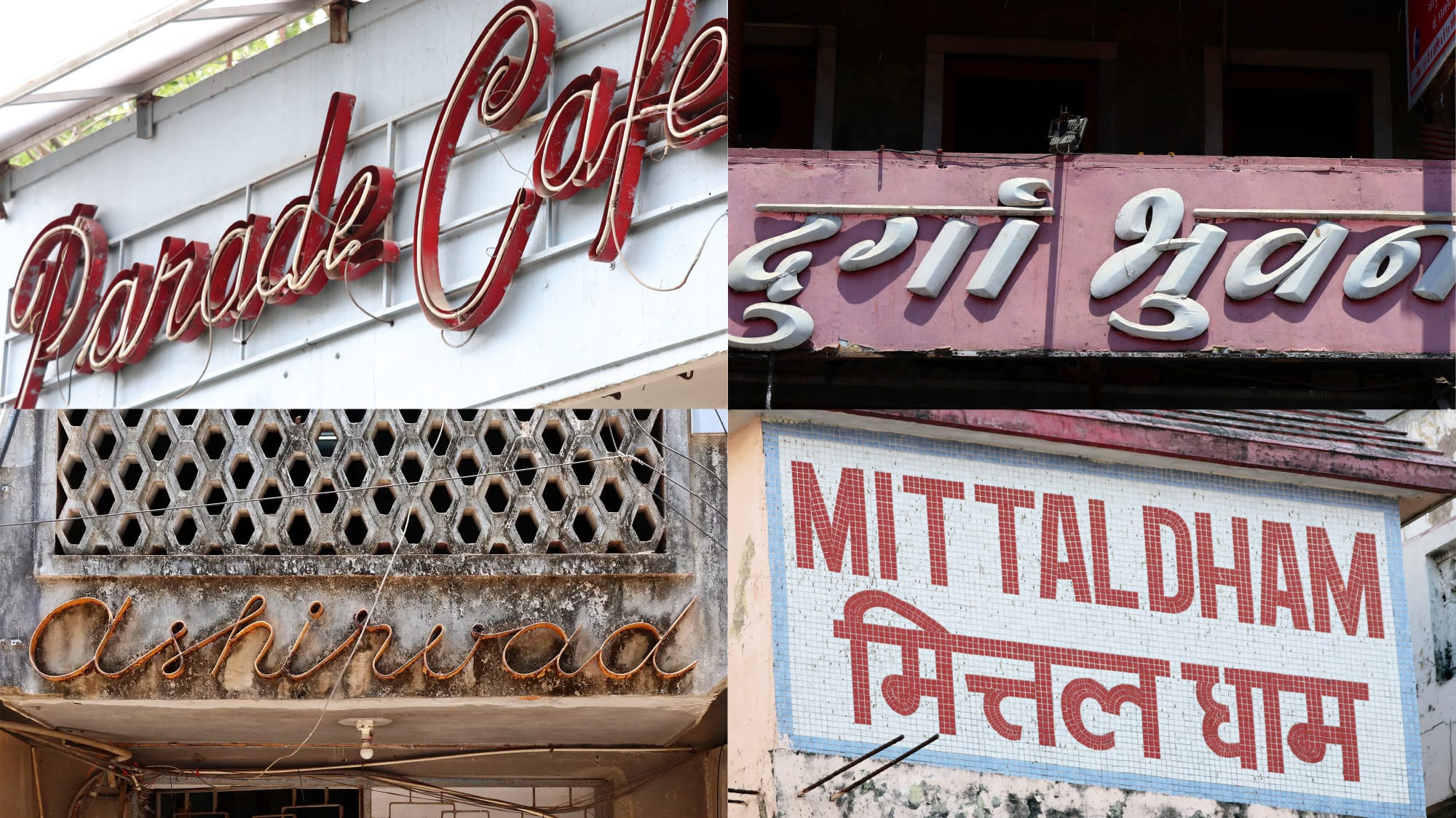
While I had never doubted the immense skill of sign painters, it took coming back to their work with new perspectives and a curiosity to see beyond the surface. I focused on recording signs and stories with the intention of zooming in, concerning myself first with the scale of the neighbourhood, rather than sweeping generalisations. If the exuberant adjectives used to describe sign painting felt vacuous, it was time to learn the language of the trade in local tongues. [Pooja explored some of this language in her recent BLAG Meet talk.] And most of all, I looked at painted letterforms with similar inquisitiveness and criticality that I do typefaces.
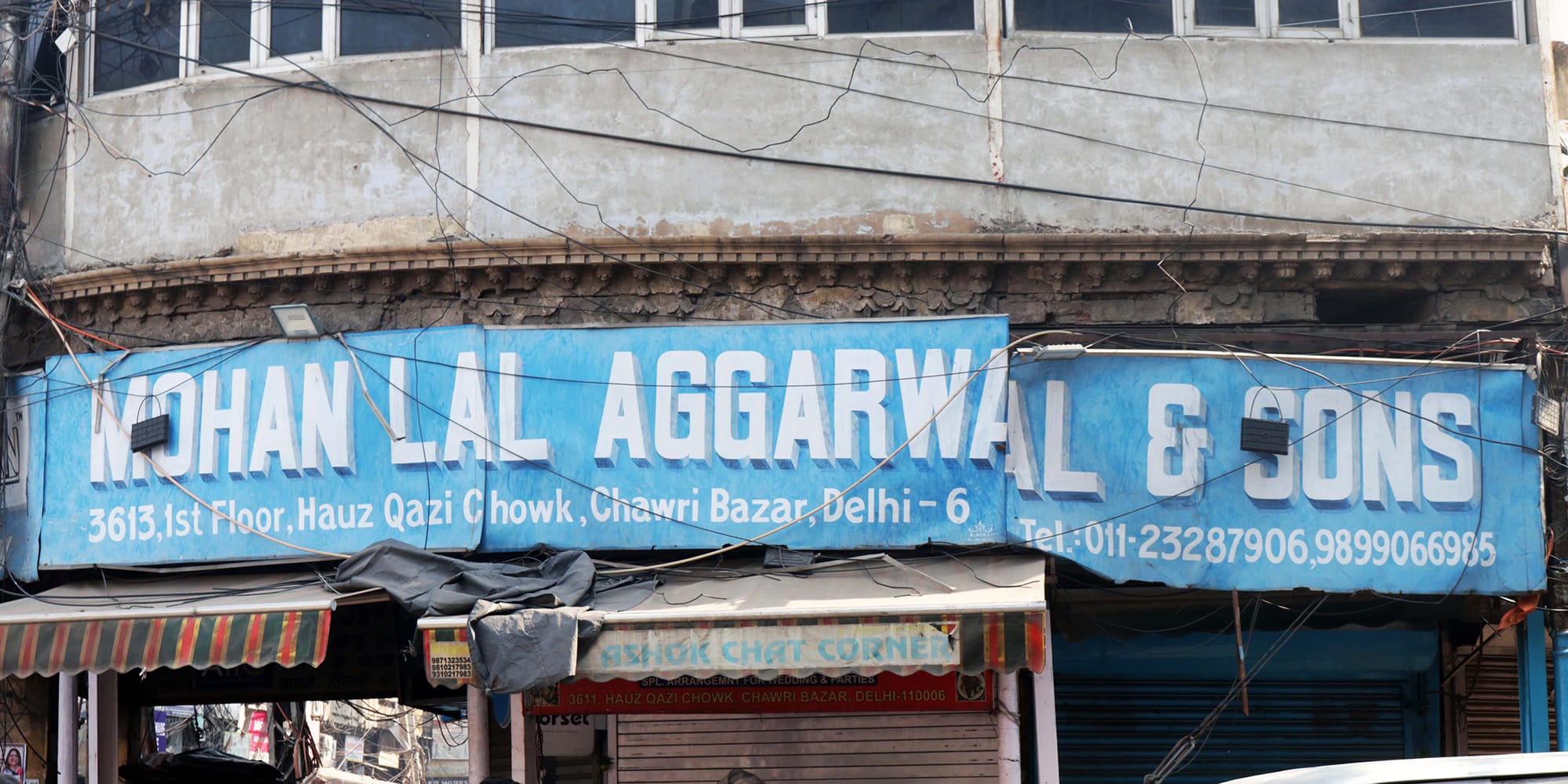
Searching for Local Typographic Flavour
It is not uncommon for sign painters to be employed by agents of large corporations, Indian and international, painting their logos on walls over and over again, but it is usually when they produce work for their communities and local businesses that they have the opportunity to flex their creative muscles.
I asked Mohanlal Sihani, a sign painter and proprietor of Shiv Arts in Chawri Bazaar, New Delhi, how he designs a shop sign: Does he show the customer samples of previous work? Are there discussions about preferred styles and colours? Is there an agreement on the design before he paints it?
The answer to all these questions was ‘no’. As it turns out, the process is based simply on trust. Sihani said that folks come to him because they know him and his work, and have faith that he will create a sign in his signature style that will suit their business. He chooses the layout, picks the lettering styles, and even adds illustrations where he feels they’re necessary.
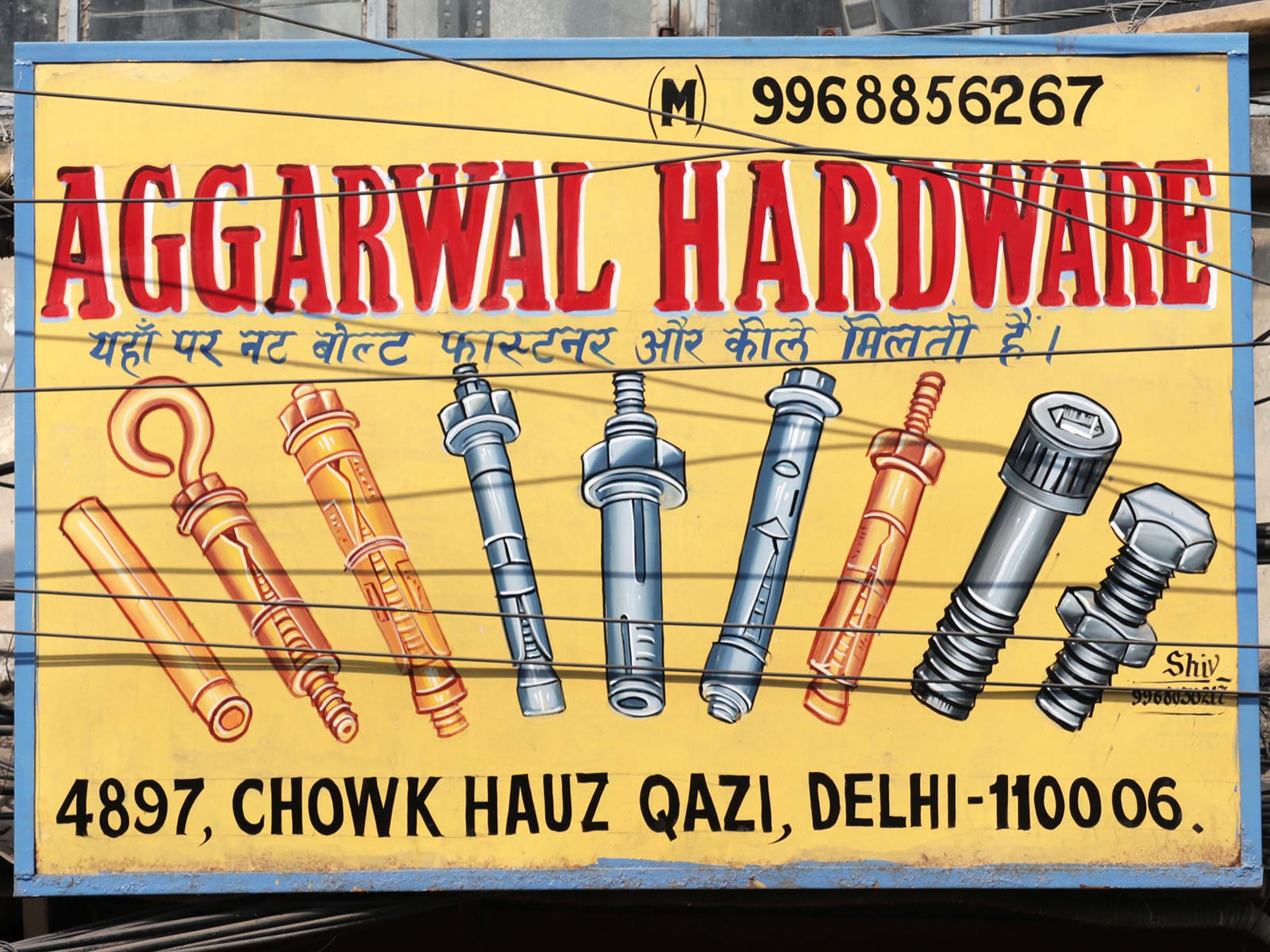
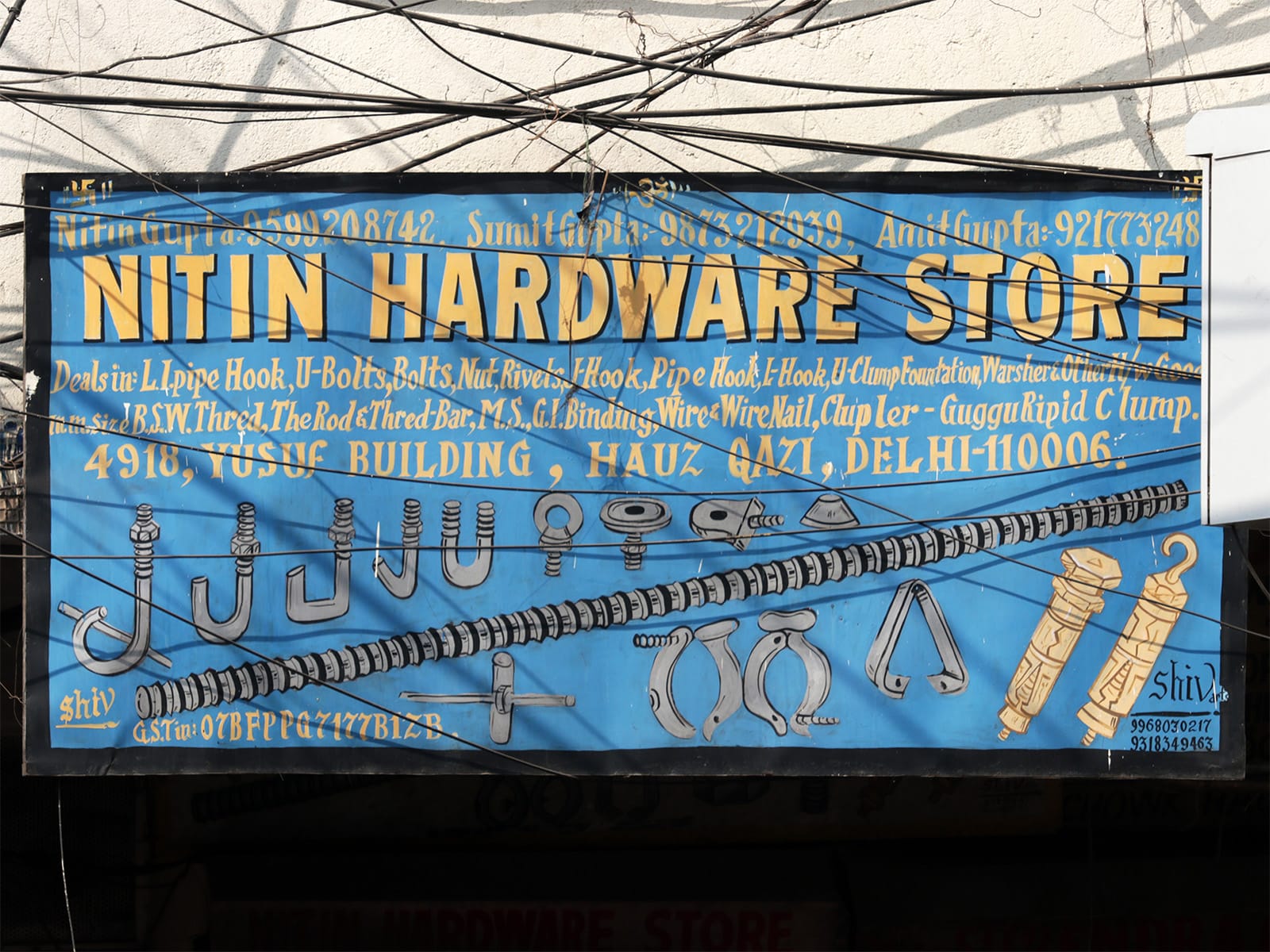
Hardware store signs by Mohanlal Sihani (Shiv Arts) in New Delhi.
Perhaps, it is this kind of creative independence that allows and encourages sign painters to cast their cities and neighbourhoods in recognisable typographic flavours, which sometimes end up taking on lives of their own. I am thinking of the painted buses of Kolkata, for example.
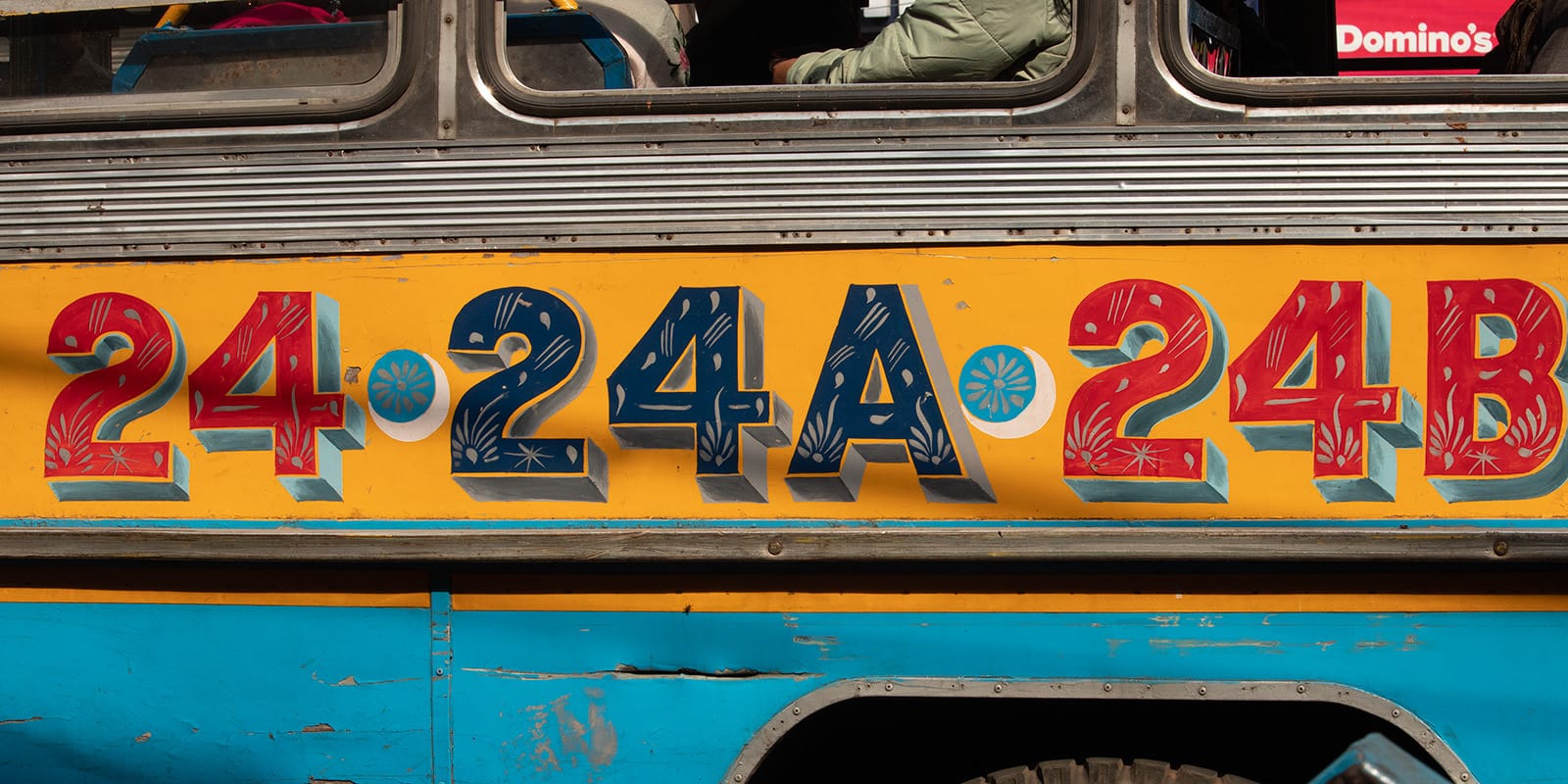
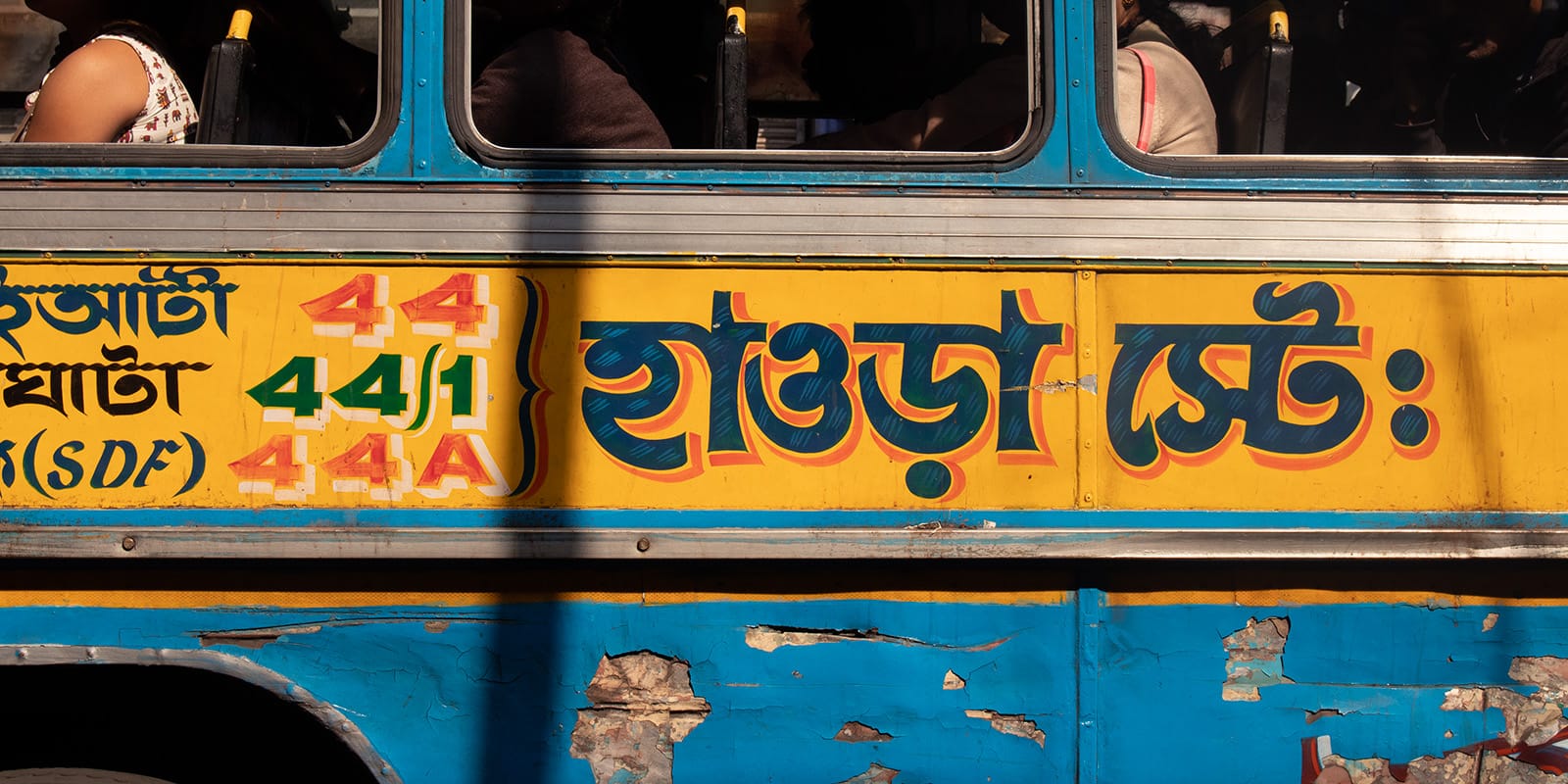
Buses in Kolkata with painted numbers, routes, and destinations, painter unknown.
And speaking of painted vehicles, how about the boats from Kochi’s Mattancherry? Or the lettering on trucks, also from Kochi, that strikes a unique chord even in a region known for its truck art.
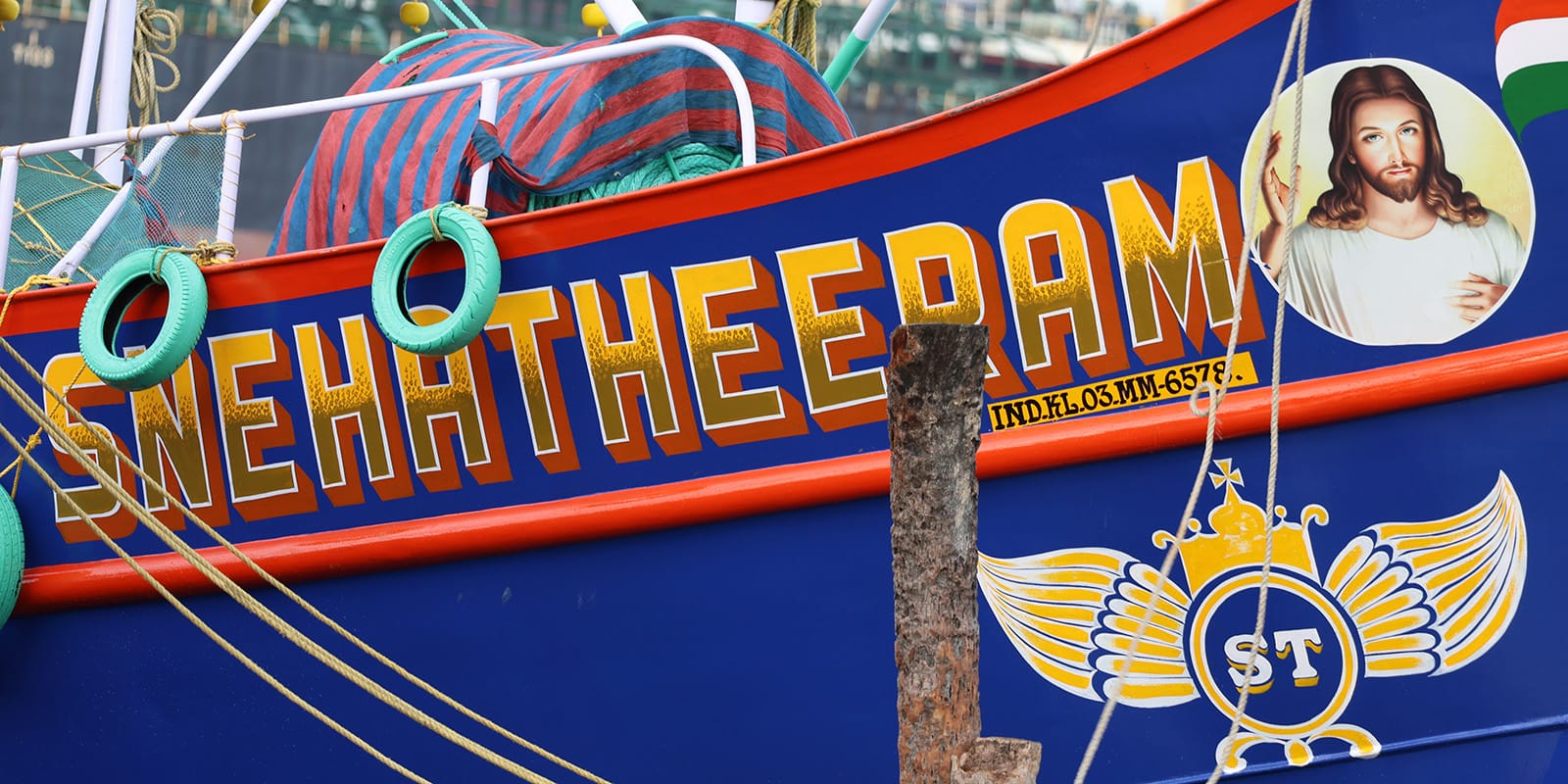
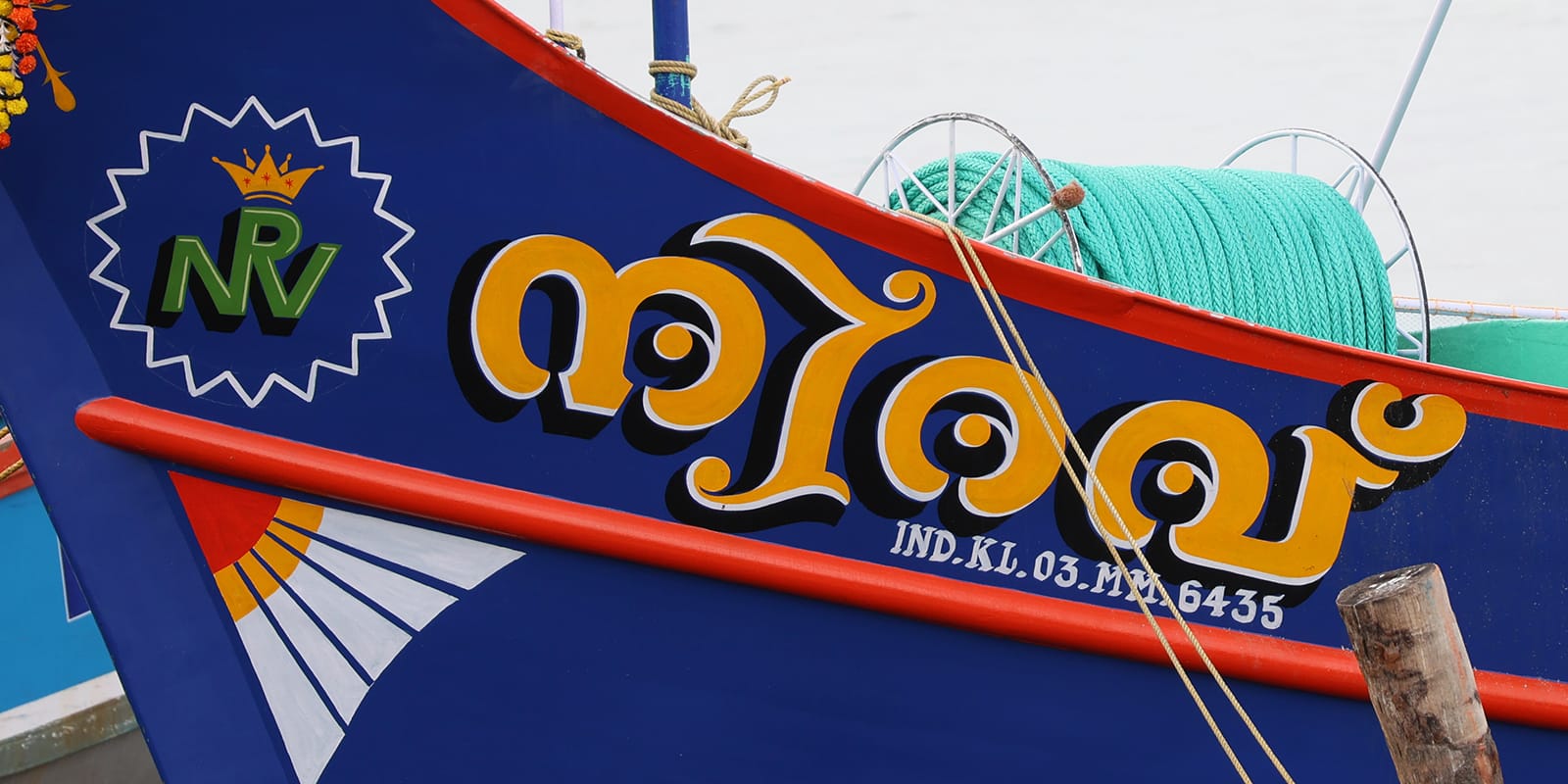
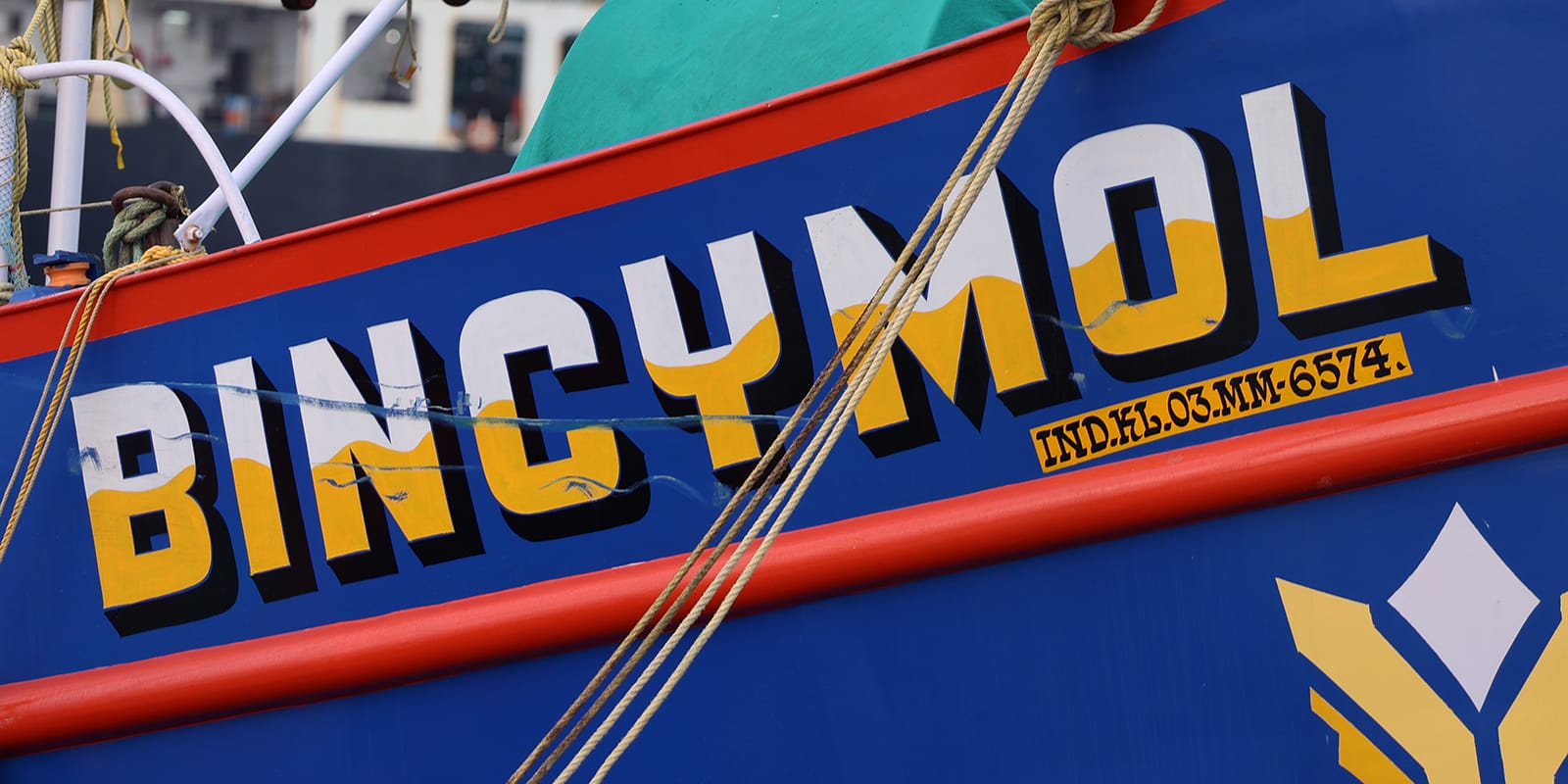
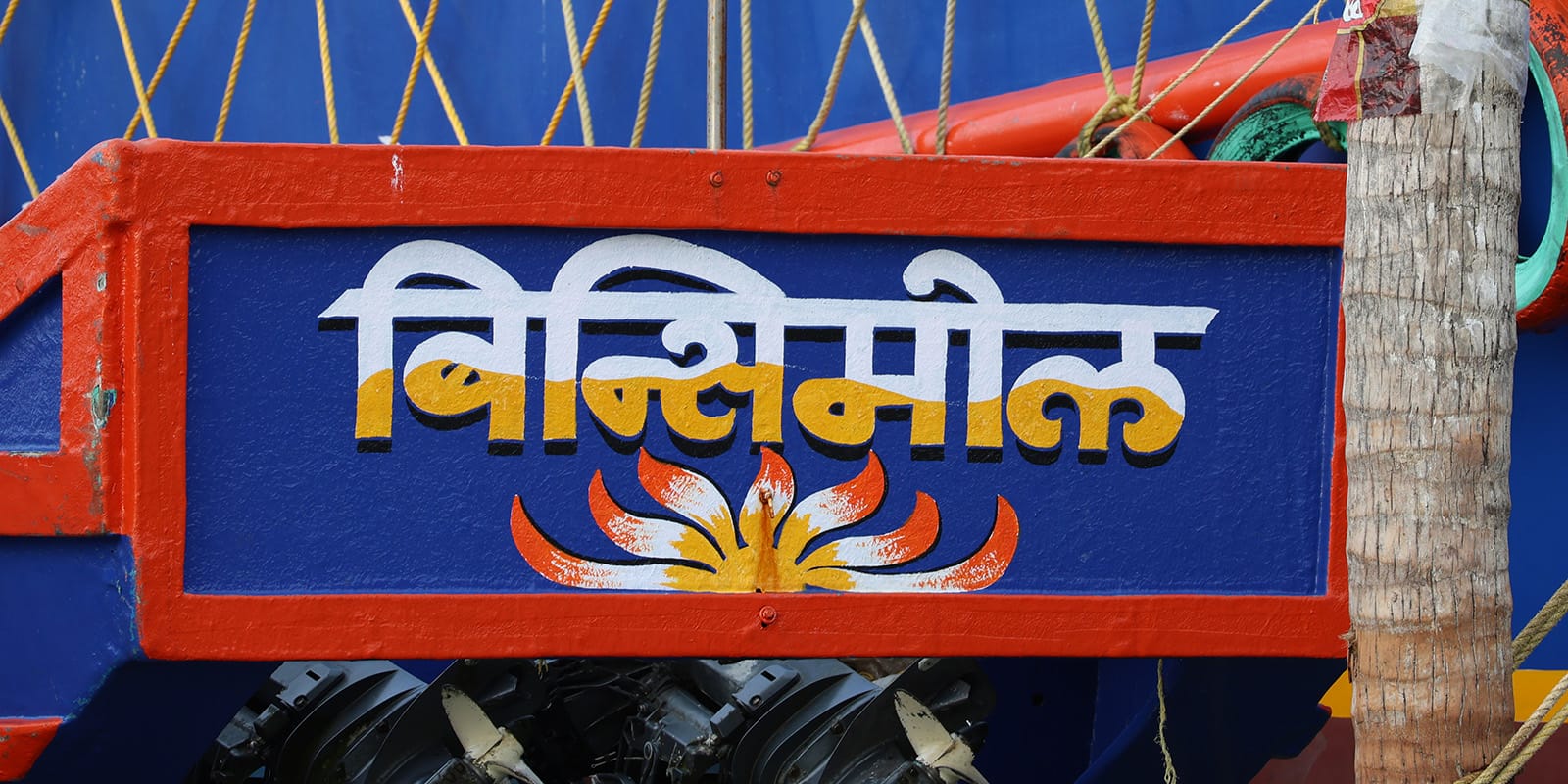
Painted boats in Kochi, painter unknown.
Painted trucks in Kochi, painter unknown.
The thing to remember, though, is that these local typographic identities aren’t entirely prescriptive, and, in fact, foster experimentation. Last year, I spoke to Ram Kumar Azad, proprietor of Azad Band in Lucknow. In a city known for its brass bands and their trolleys, Azad Band’s automobiles are conspicuous for their restraint. This is not an accident. Azad explained that his father worked closely with a sign painter to develop their visual identity using only red, black, and white, so they would stand out in a sea of brightly-coloured trolleys.
Maximalist trollies in Lucknow for Amrit D.J. Band (painted by Anwar Art) and Jai Bharat D.J. Band.
A Typeface Designer’s Perspective
For me, seeing painted signs from a typeface designer’s perspective is both a professional hazard and a super power. And by this, I don’t mean mining them for ideas for new typefaces, but being on the lookout for dialogue between sign painting and printing, and learning from them what my typographic education might have missed.
One of my pet peeves is seeing painted letterforms parrot shapes brought on by the constraints of moveable type, even when those restrictions don’t apply to them. For example, in hand-written Devanagari script there are almost endless pairs of consonants that use conjuncts. These are composite glyphs representing combinations of half and full consonants, e.g. the half form of the ब (b) before the full form of the ल (l) to form the sound ‘bl’ in ‘blag’. To retrofit the script into a small, finite character set for producing moveable type, many of these unique pairings were done away with. The solution was to recreate the conjuncts using discrete half and full forms of consonants, and the trade-off was visible gaps where the written script has continuous lines.